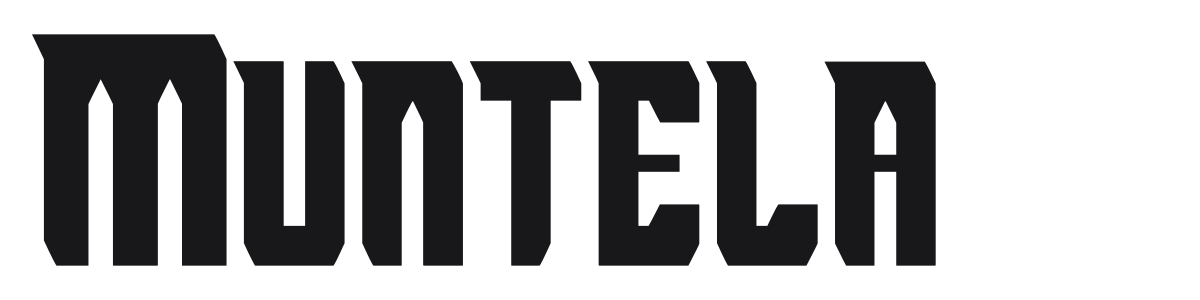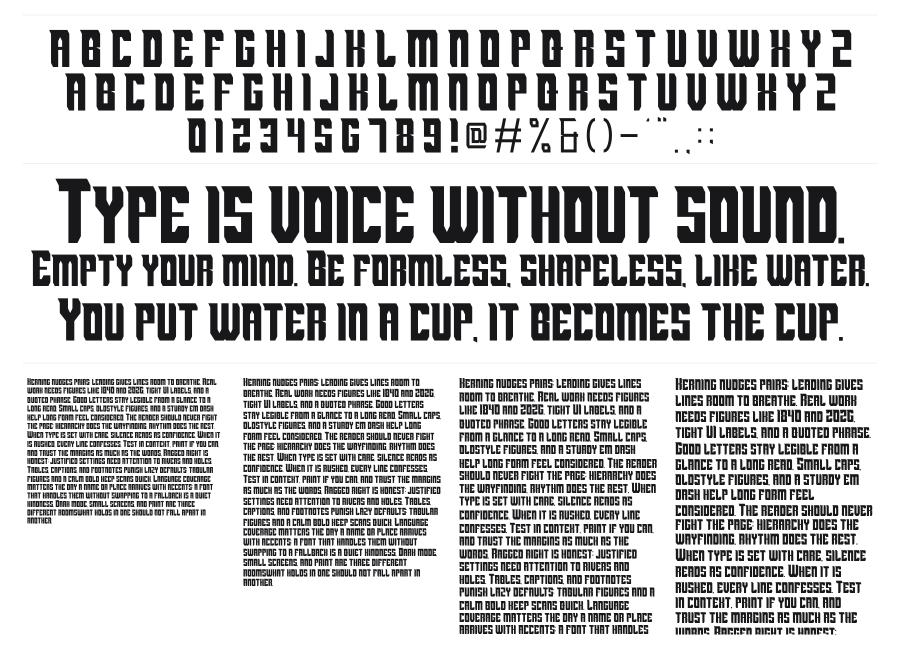
Muntela
Muntela is a heavy, condensed display face with thick uniform strokes and sharp angular notches cut into junctions and terminals. The construction draws from 1970s sport and constructivist block lettering, giving it a dense, forceful presence at headline sizes. It carries strong associations with stadium graphics, action branding, and urban street culture.